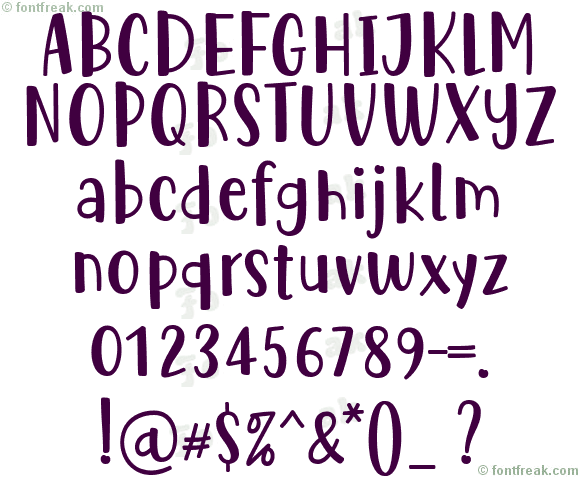
Cute Be Special
About Cute Be Special
The Cute Be Special font by Situjuh Nazara is a delightful display typeface that embodies a playful spirit, making it ideal for various creative applications. This handwritten-style font features rounded edges and a whimsical design, which adds a touch of charm and friendliness. The stroke weight is consistent, providing a smooth flow across text, while the spacing between letters enhances readability without compromising its decorative appeal. The font’s unique character set includes playful curls and loops, further accentuating its cheerful vibe.
This versatile font is particularly well-suited for several specific use cases. It shines in wedding invitations, where its charming nature can evoke feelings of joy and celebration. Additionally, it is perfect for children's book covers, allowing authors to capture the attention of young readers with its inviting style. Cute Be Special also works wonderfully for restaurant menus, especially those focusing on family-friendly or whimsical dining experiences. Moreover, it can be effectively used in promotional materials for small businesses aiming to convey a warm and approachable brand image, such as bakeries or toy shops.
The target audience for this font includes graphic designers looking for a versatile typeface that can bring a lighthearted touch to their projects, small business owners seeking to stand out with unique branding, and content creators in need of an engaging font for digital content.
What makes the Cute Be Special font stand out is its ability to blend playful aesthetics with functionality. It not only draws attention but also maintains clarity, ensuring that your message is communicated effectively. For those looking to enhance their design projects, the Cute Be Special font free download offers an excellent opportunity to infuse creativity and warmth into any visual endeavor.